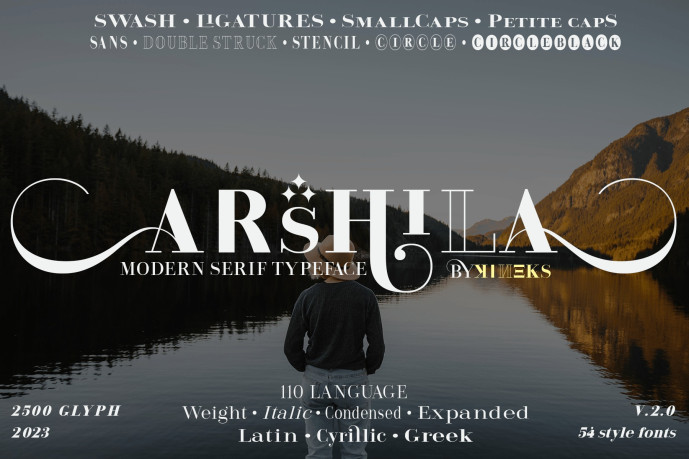
Arshila Modern Serif Typeface
Designer: bykineks
Arshila 2.0 is a modern serif typeface that merges classic refinement with contemporary versatility. Designed by Bykineks, this upgraded version expands its creative potential with 2500+ glyphs, extended language support, and fresh stylistic options.
• 54 styles (weights, italics, condensed, expanded)
• 2500+ glyphs with Latin Pro, Cyrillic, and Greek coverage (supports 110+ languages)
• Extensive OpenType features: ligatures, swash, small caps, petite caps, stylistic alternates, fractions, symbols, arrows, dingbats
• New design sets: sans serif, stencil, double struck, circle, and circle black variations
Arshila 2.0 is a modern serif typeface with 54 styles, 2500+ glyphs, and 110+ language support. Packed with ligatures, swashes, small caps, and new stylistic sets, it’s perfect for luxury branding, editorials, and elegant digital designs.